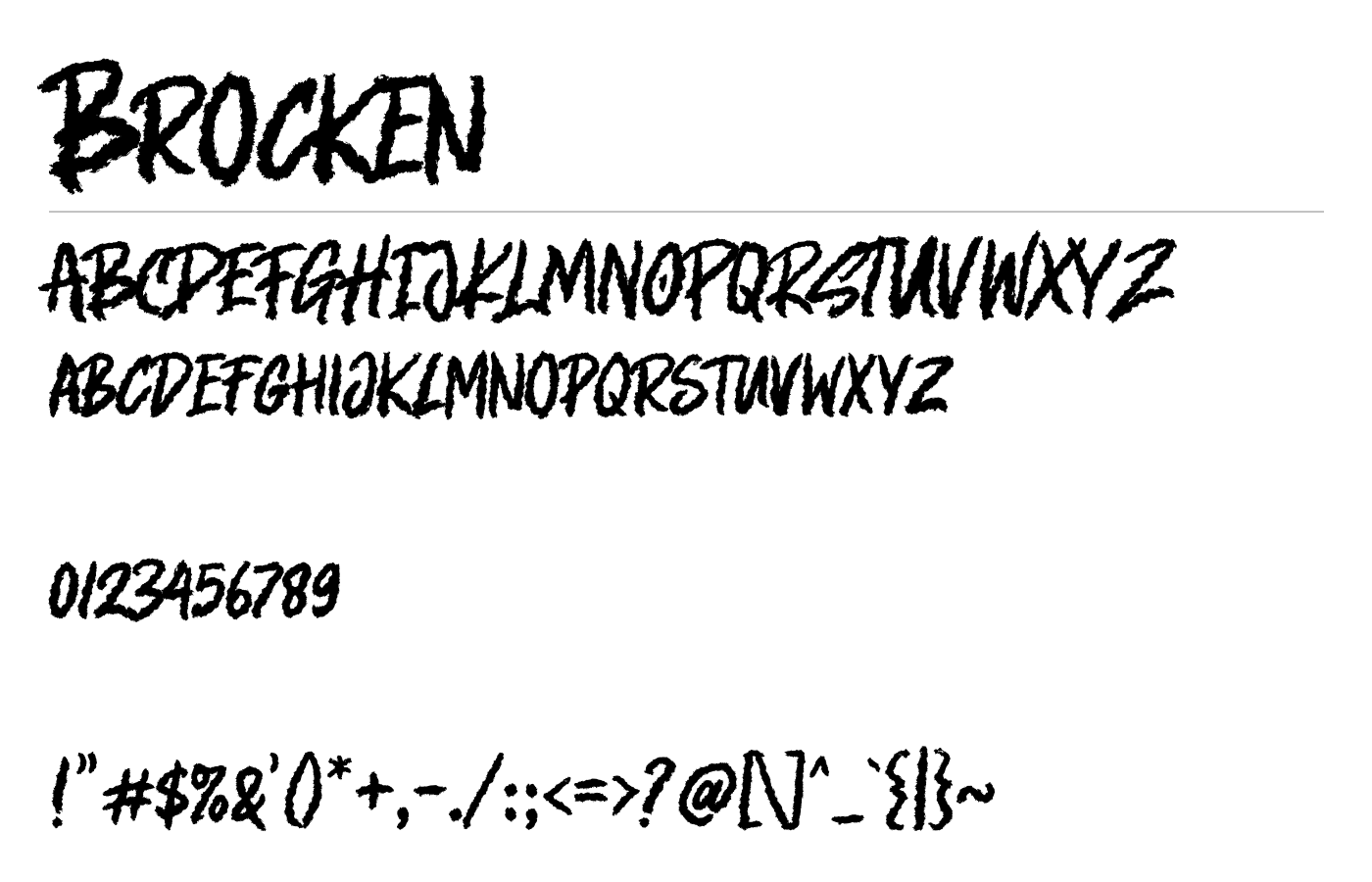
Brocken Font is a bold, textured handwritten typeface with a rough, expressive style that adds a dynamic, edgy feel to any design. Its irregular, brush-like strokes and varied letter shapes make it perfect for creative projects that seek a casual, artistic, and energetic vibe. This font works well for logos, posters, and branding that want to stand out with a raw, authentic character.
Brocken Font
About Brocken Font
| Font family | Brocken Font |
| Designer | Wahyu Andi Prasetiyo |